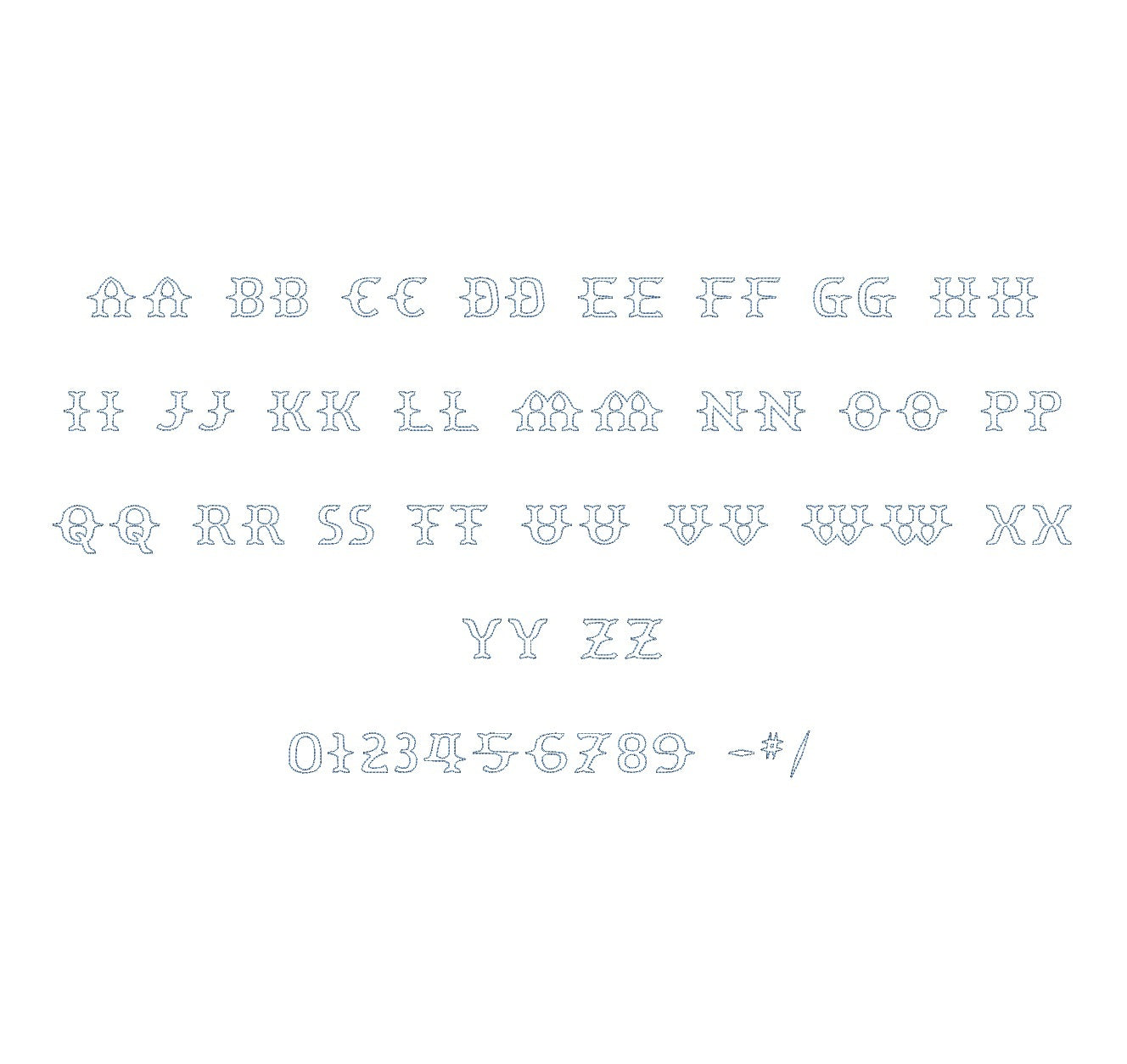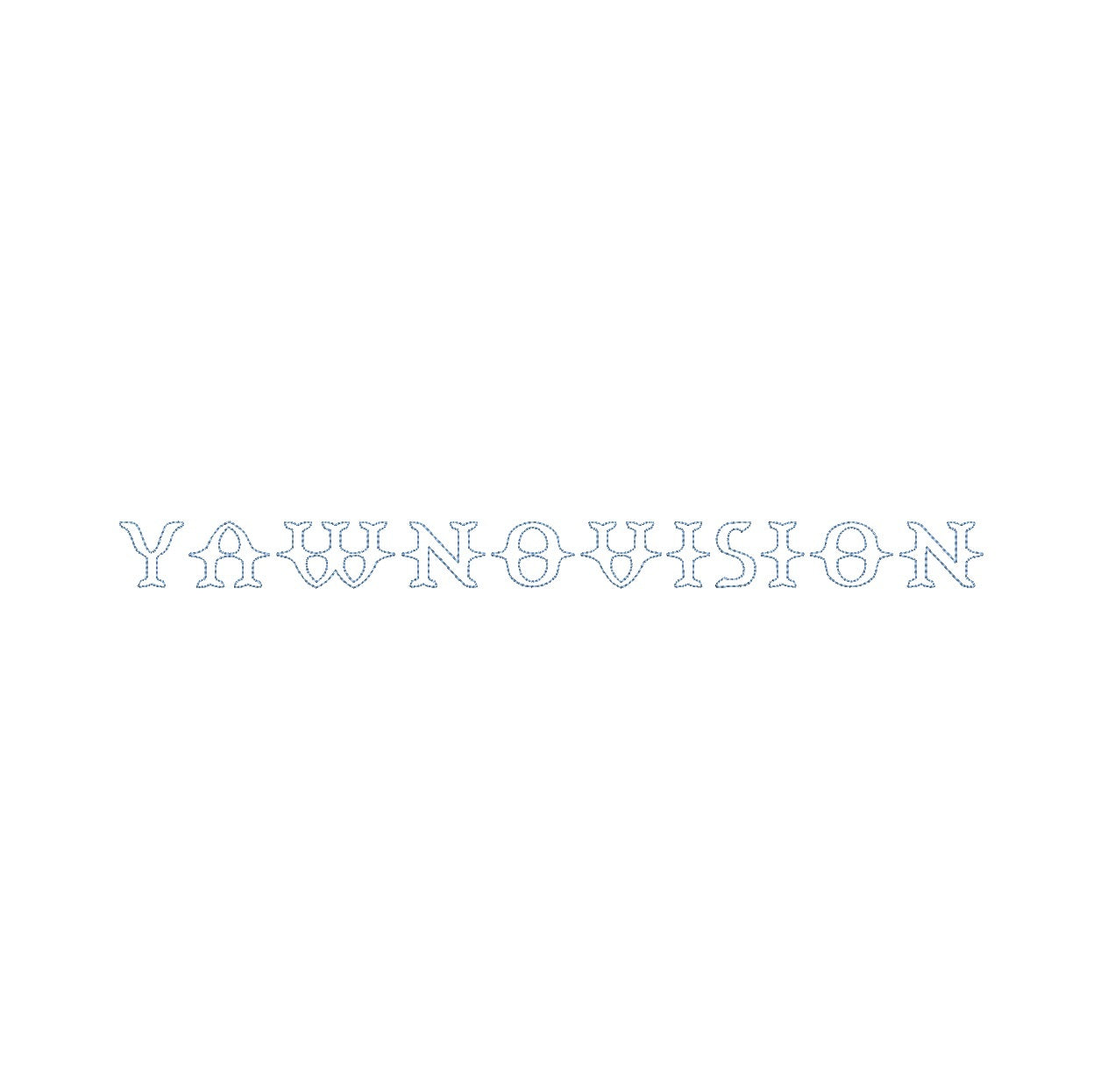
Elevate your embroidery projects with the Yawnovision Bean Outline ESA font, compatible with Wilcom Studio e4.5.6 and Hatch 3 versions and up. This font seamlessly blends innovation and precision, infusing your designs with a unique aesthetic perfect for contemporary monograms and embellishments. Experience seamless compatibility for exceptional results and unlock a new level of stitching finesse. Transform your creations into embroidery masterpieces that radiate modernity and creativity. Elevate your projects with the Yawnovision Bean Outline ESA font and make your embroidery truly cutting-edge and unforgettable.